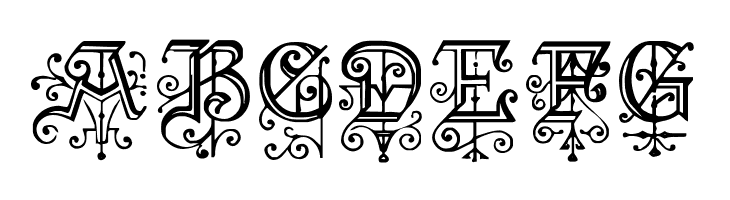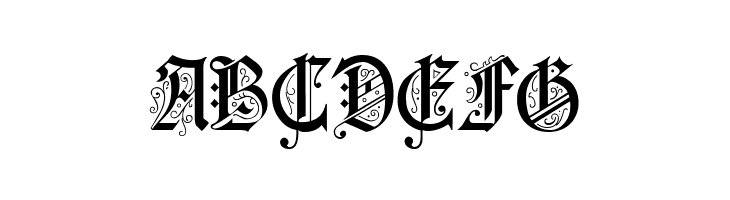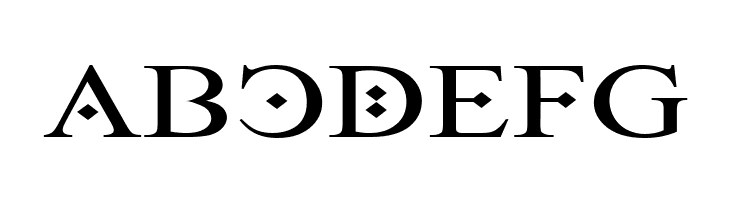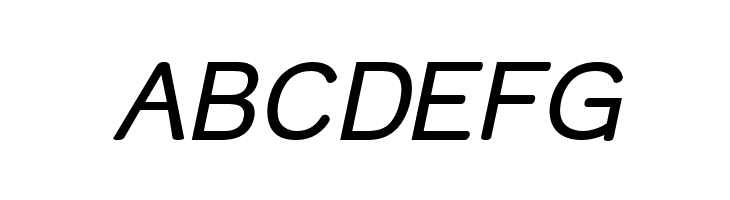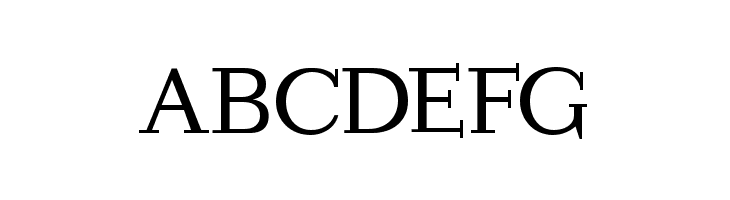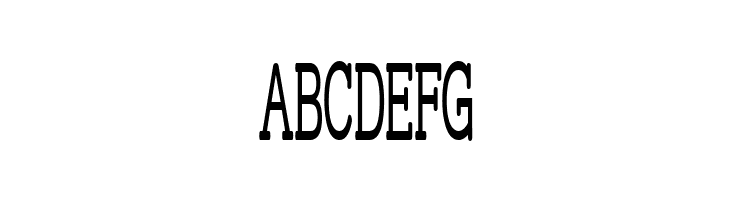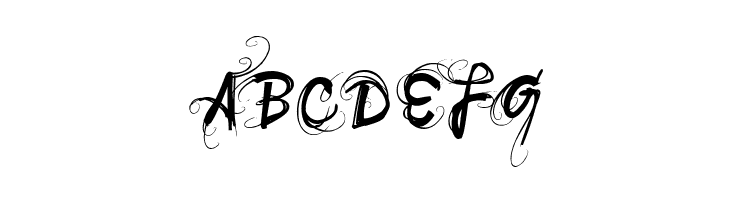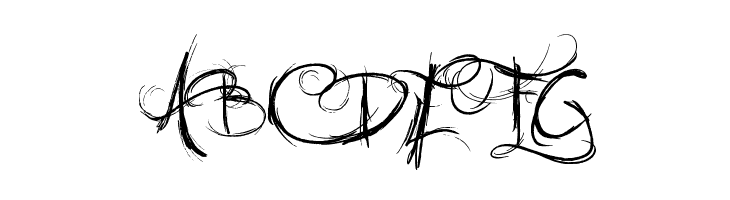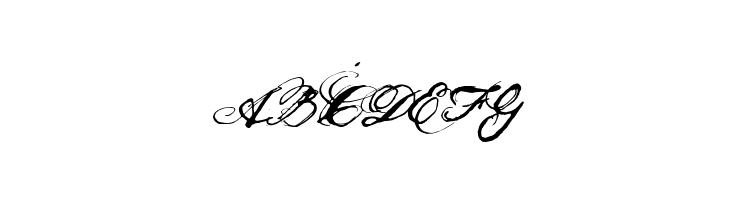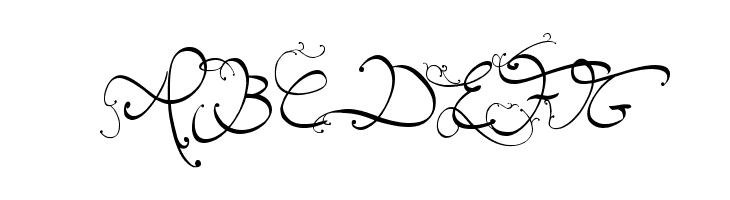
An ornate, medieval-inspired font with decorative flourishes and structured character design.
A decorative Gothic font with intricate flourishes and modern elements.
An ornate blackletter font with intricate detailing and a classic, formal style.
A bold, angular serif font with a mystical and adventurous style.
A modern, oblique sans-serif font with a sleek and dynamic appearance.
A dynamic, oblique font with sleek, narrow letters and a modern aesthetic.
A bold slab serif font with strong, uniform strokes and clear readability.
A classic serif typeface with sharp serifs and balanced proportions, ideal for formal and professional use.
A narrow slab serif font with bold, squared serifs and modern appeal.
An elegant script font with intricate swashes and high contrast strokes.
An elegant script font with ornate swashes and flowing cursive letters.
A whimsical and artistic font with elaborate decorative swirls.
An ornate, whimsical font with intricate swirls and flourishes.
An elegant script font with flowing, cursive letterforms and classic calligraphic style.
A distressed, sketch-like font with a chaotic and edgy appearance.
An ornate and decorative font with swirling, artistic letterforms.
An ornate and decorative script font with elaborate swirls and flourishes.
An ornate and decorative font with intricate swirls and flourishes.
An ornate and artistic font with swirling flourishes and grunge effects.